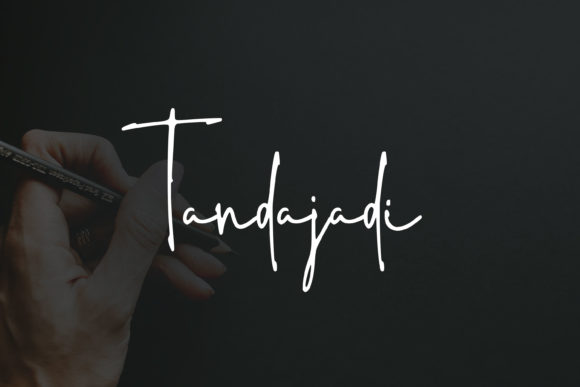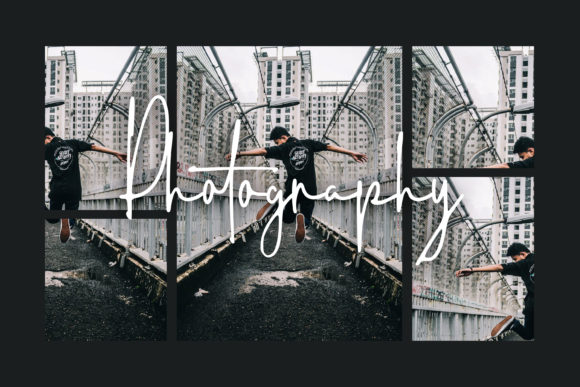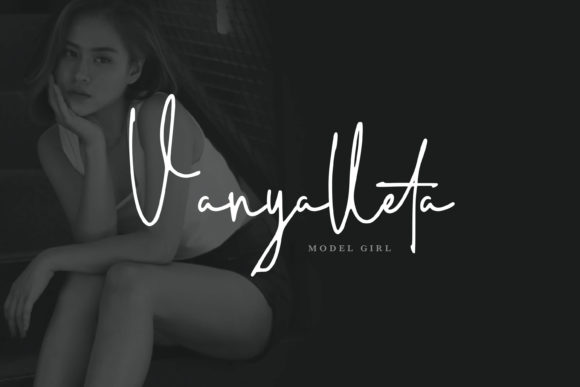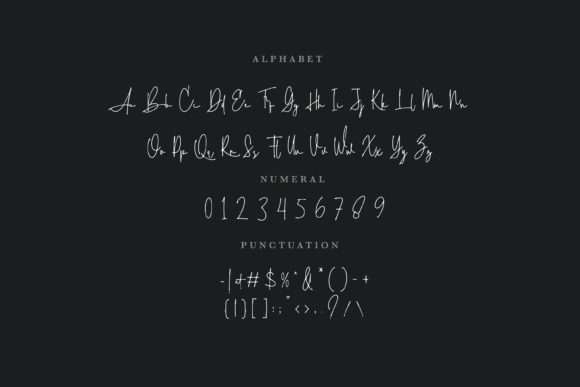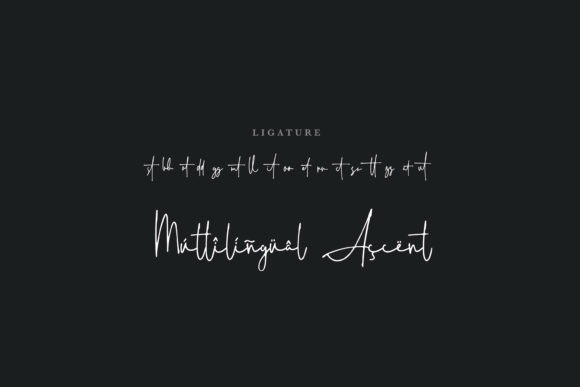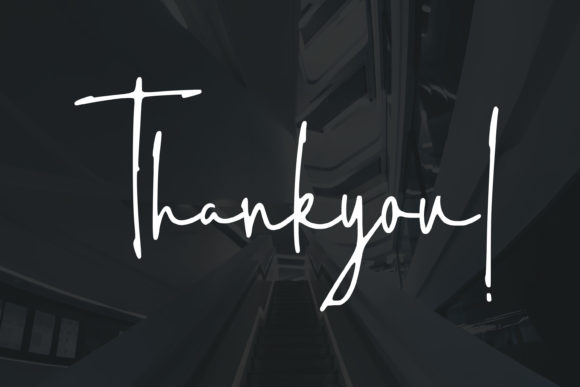
Introduction to Midttone Font Font
Fonts play a crucial role in design, and the Midttone Font font is a typeface that brings both character and versatility to any project. Whether you’re working on a branding project, a website, or a print design, the Midttone Font font offers a unique style that can elevate your work.
Midttone is a lovely script font featuring charming, playful characters that seem to dance along the baseline.
Add this font to your most creative ideas, and notice how it makes them stand out .
Key Features of Midttone Font Font
Why Choose Midttone Font Font?
The Midttone Font font is more than just a typeface – it’s a design tool that helps you communicate your message with style and clarity. Its unique character set and versatile design make it suitable for a wide range of applications, from elegant invitations to bold headlines.
With its carefully crafted letterforms and balanced proportions, the Midttone Font font ensures readability and visual appeal across all mediums.
What makes Midttone Font font special?
The Midttone Font font stands out with its unique design, exceptional readability, and versatility across various design applications.